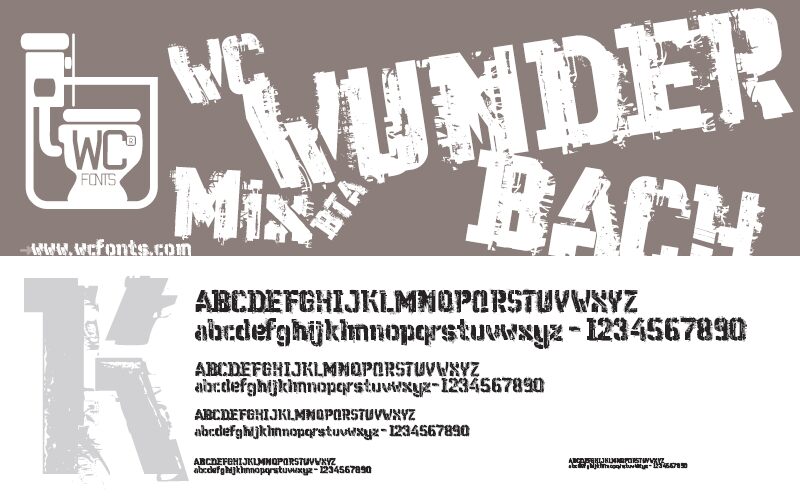
WC Wunderbach Mix from WC Fonts is a free eroded stencil font with broad, blocky caps and a worn surface. Scratches and broken edges give the letters the look of damaged paint or an overused industrial stamp.
It can take military-themed posters in a gritty direction, yet the distressed construction also fits punk album covers and streetwear merchandise. The chipped stencil pattern connects these uses to combat graphics, photocopied music artwork, and weathered urban signage.